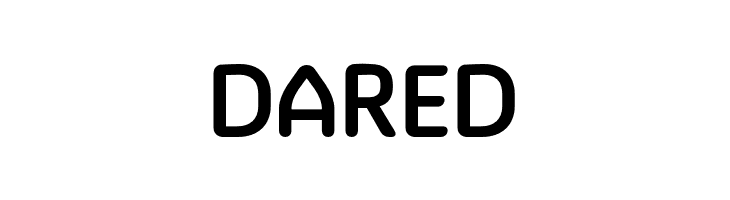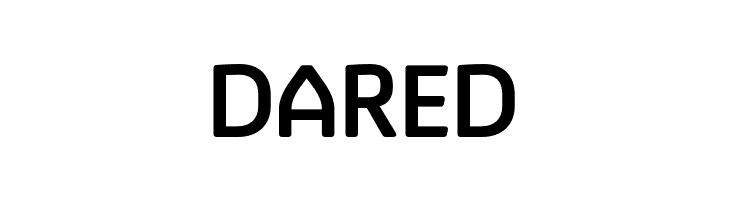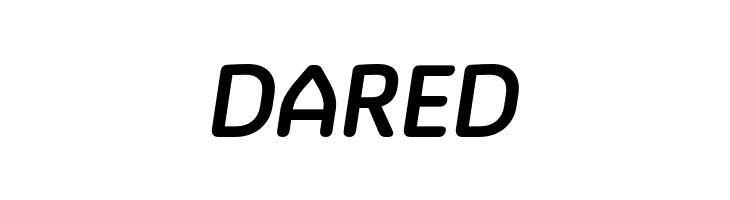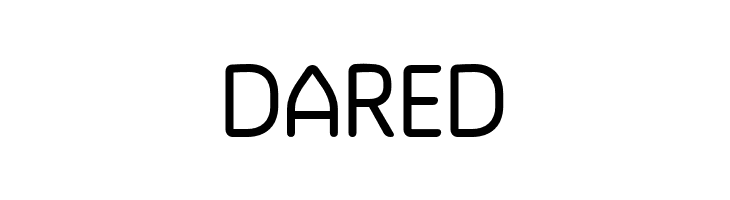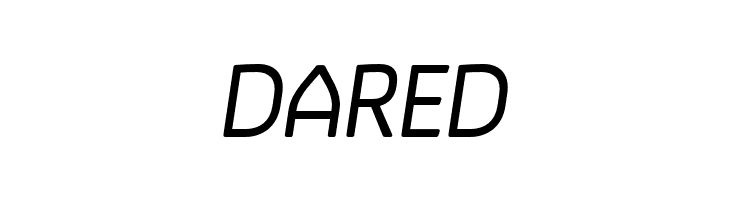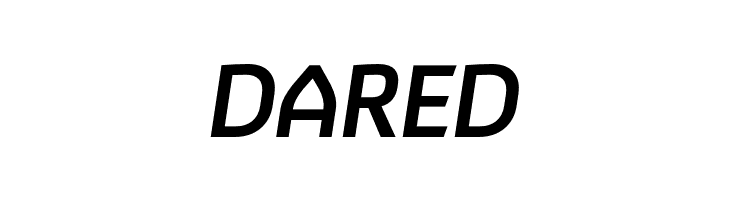
A modern, rounded font with clean lines and a friendly appearance.
A bold, modern sans-serif font with a slightly condensed style and excellent readability.
A modern, italic sans-serif font with clean lines and a dynamic slant.
A modern, bold, rounded font with a friendly and approachable style.
A modern, bold, and italic rounded font with a friendly appearance.
A modern, rounded, and slightly italic font with consistent stroke width.
A bold, rounded sans-serif font with a modern and friendly appearance.
A bold, rounded, and italicized font with a modern and approachable style.
A modern, rounded, and slightly italicized font with a smooth, flowing style.